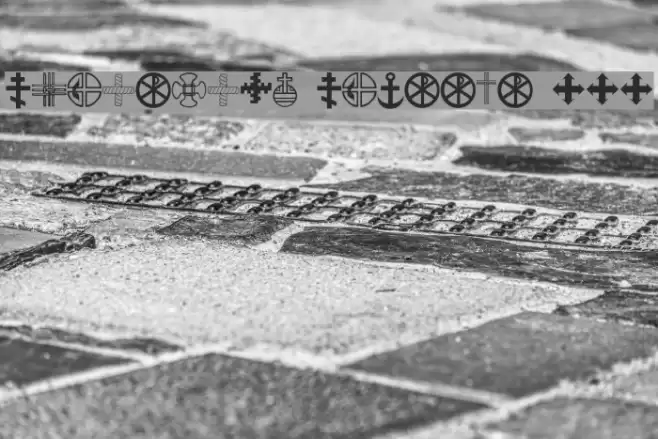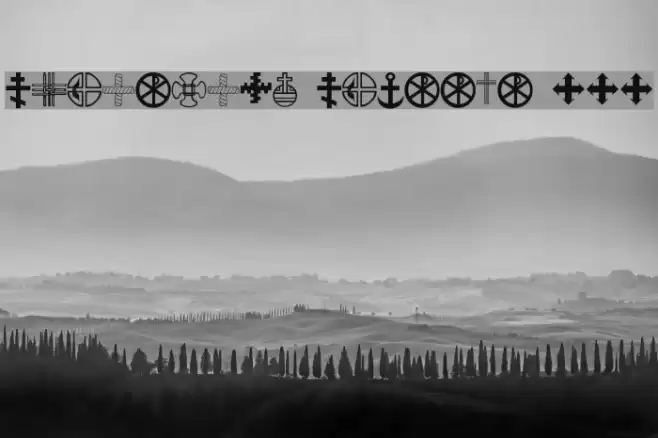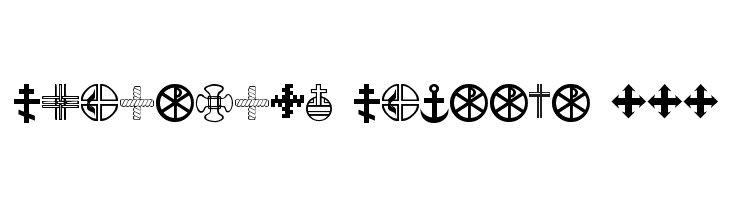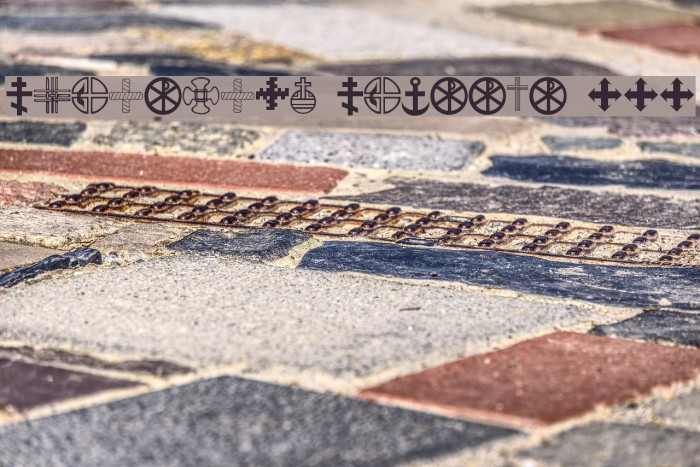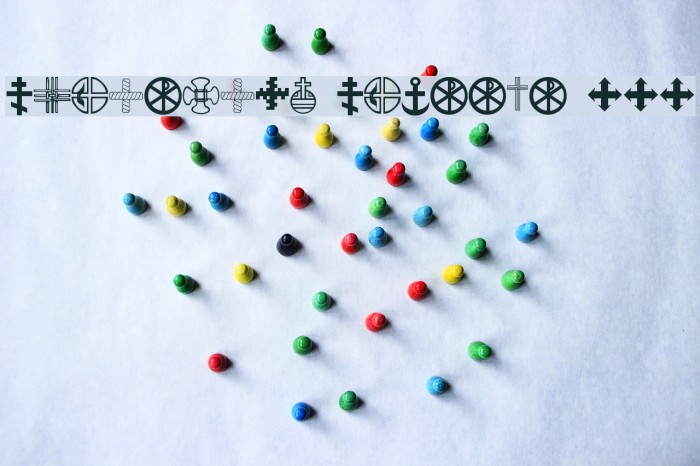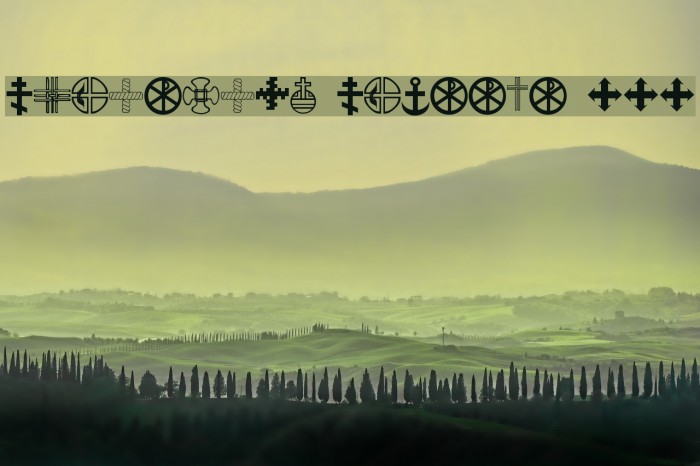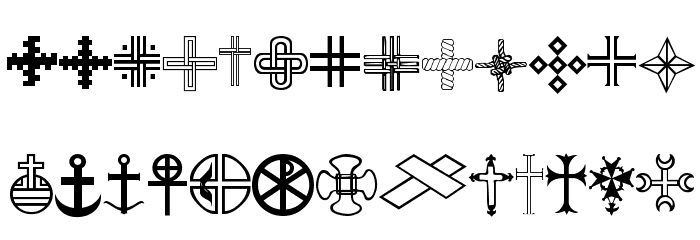
Christian Crosses III Font
A decorative symbol font featuring a wide variety of Christian cross designs, including traditional, stylized, geometric, and anchor crosses, as well as some abstract and outlined forms. The glyphs are highly detailed and diverse, with both filled and outlined styles, and some symbols incorporate additional elements like circles, knots, and anchors.
A decorative symbol font with numerous Christian cross variations from Images & Symbols fonts.
- Proposed Projects: Religious publications, church bulletins, event programs, logos, educational materials, decorative borders, and graphic design projects requiring Christian iconography.
- Overall Style: Decorative, Thematic, Religious
- Use Case: Symbols, Logos, Decorative elements, Thematic dividers